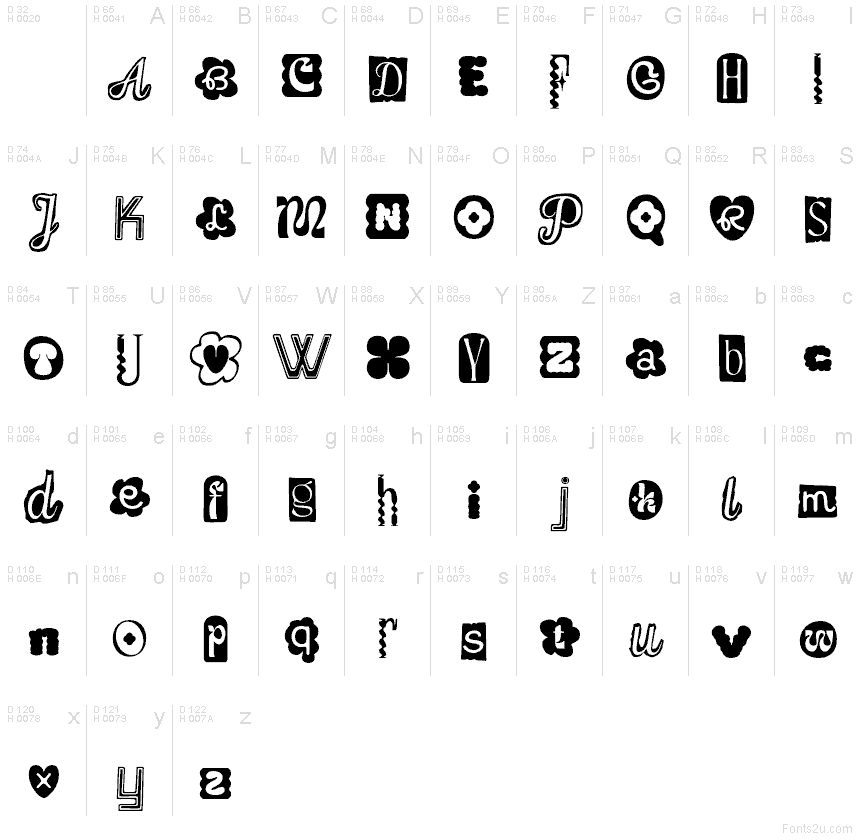
CSAnikaDrawn-Regular Demo
CS Anika Drawn font by Craft Supply Co. showcases a vintage-inspired, decorative style with an eclectic and whimsical design. Its artistic and contrasted shapes bring a unique charm to your visual projects, making this display font truly stand out.
Free for all your creative work, the typeface is suitable for posters, logotypes, comic books, cartoons and children’s books covers and titles. It also works well for invitations, greetings cards and stationery items.